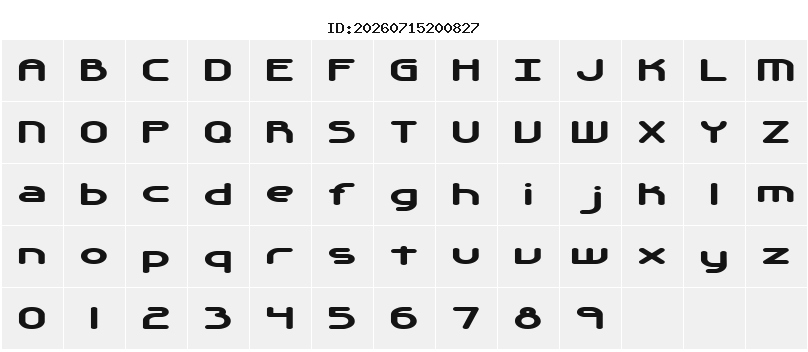
Automatica (BRK) Preview
• Font Name: Automatica (BRK)
• Full Font Name: Automatica -BRK-
About Automatica (BRK).ttf
Automatica (BRK).ttf is a modern, elegant sans-serif font designed for ultimate readability and visual harmony. Perfect for branding, headlines, web design, and print materials.